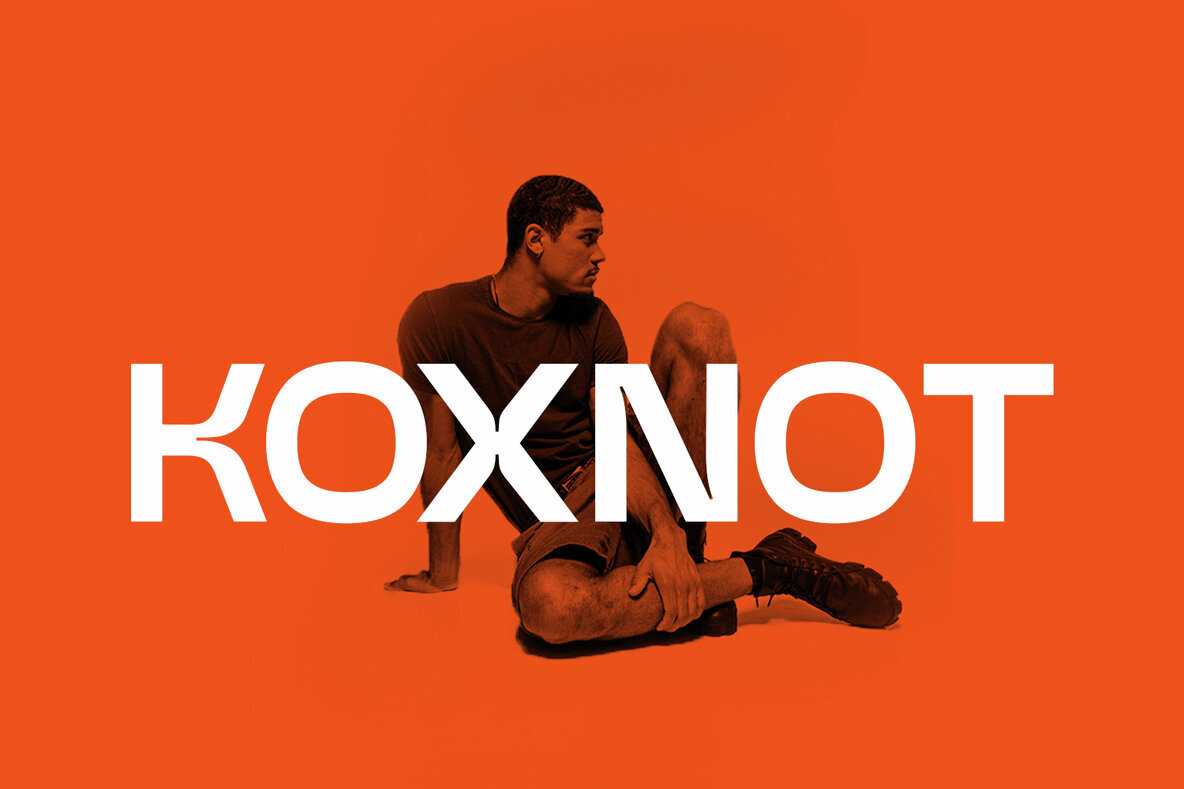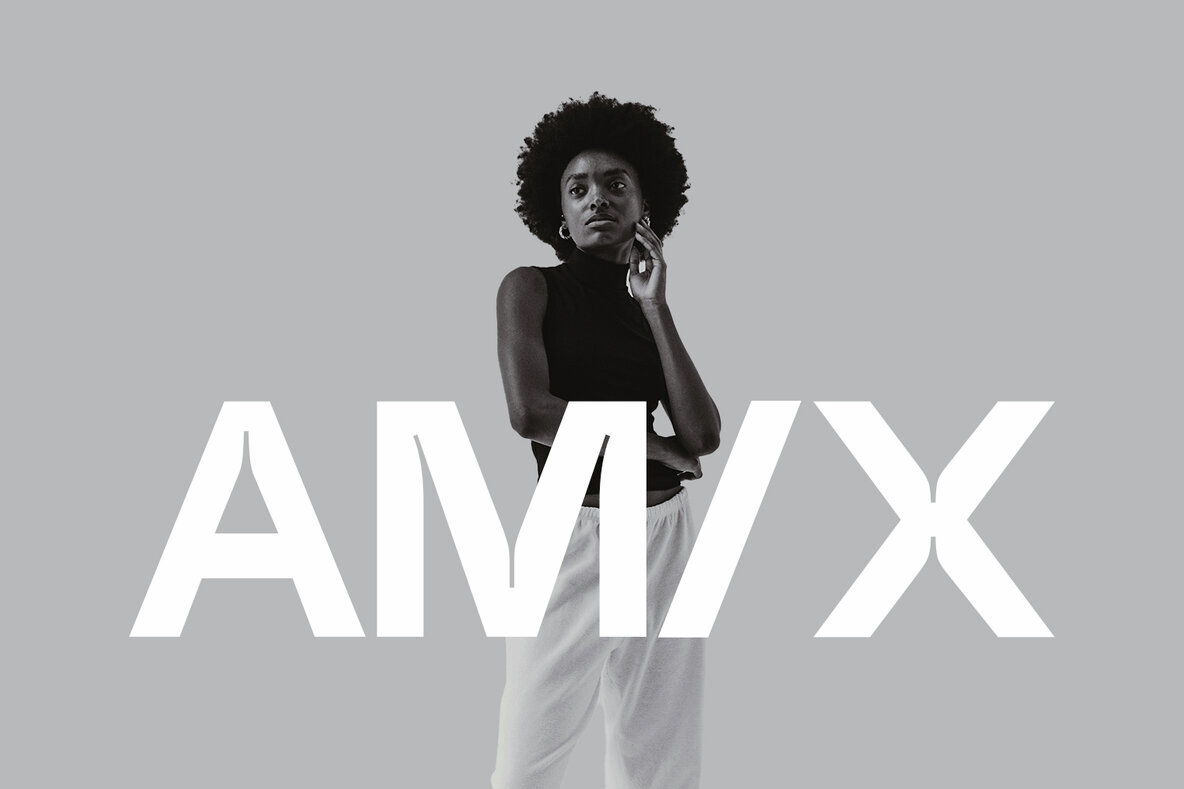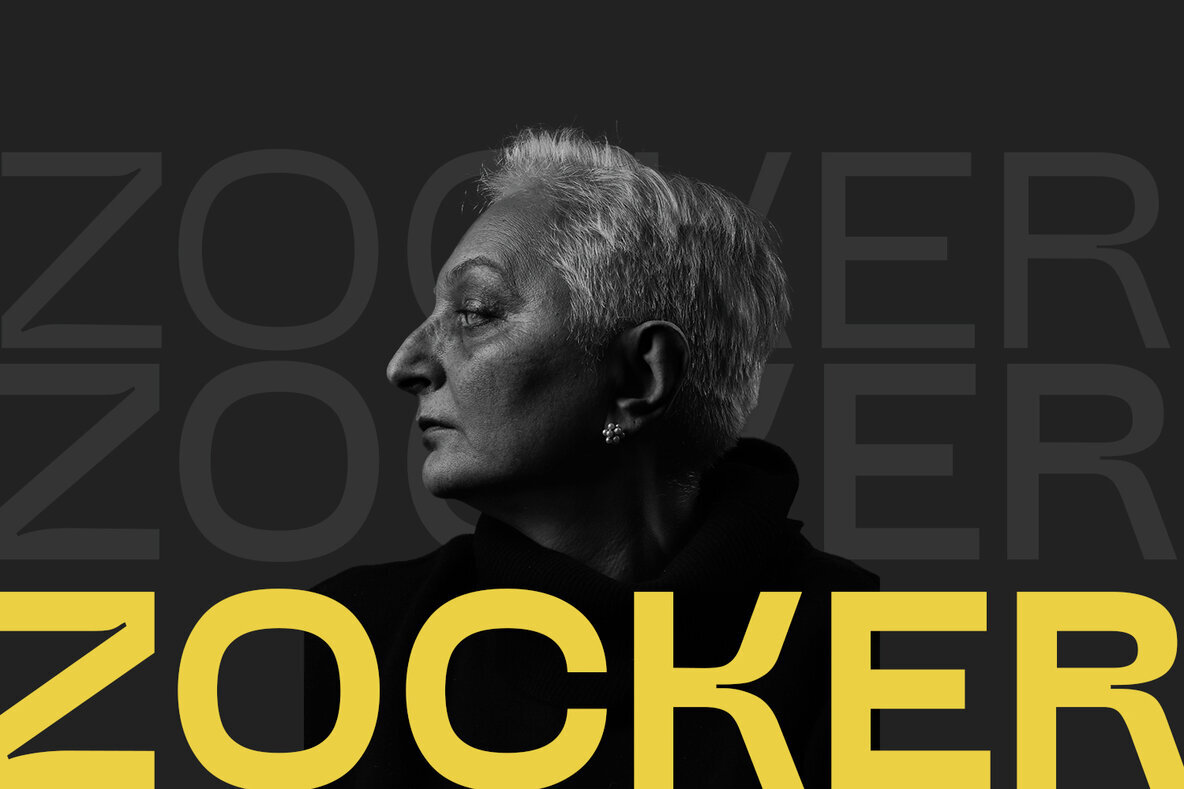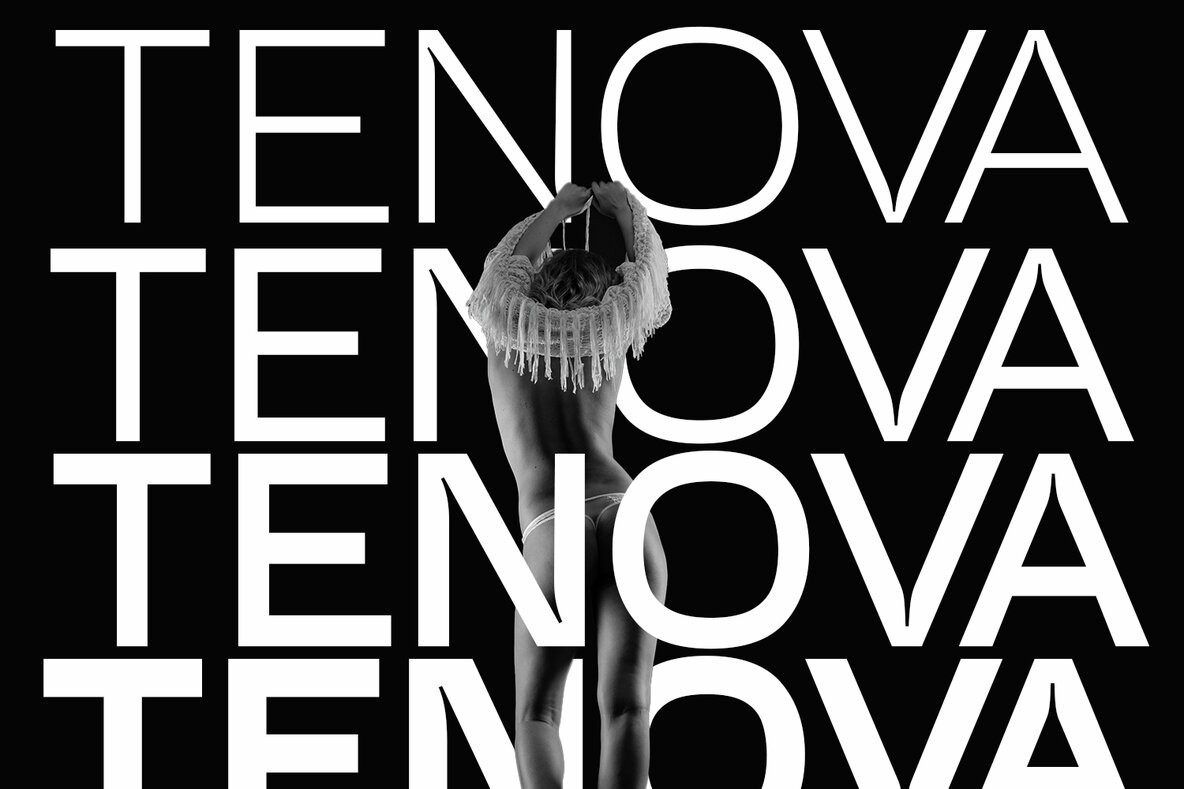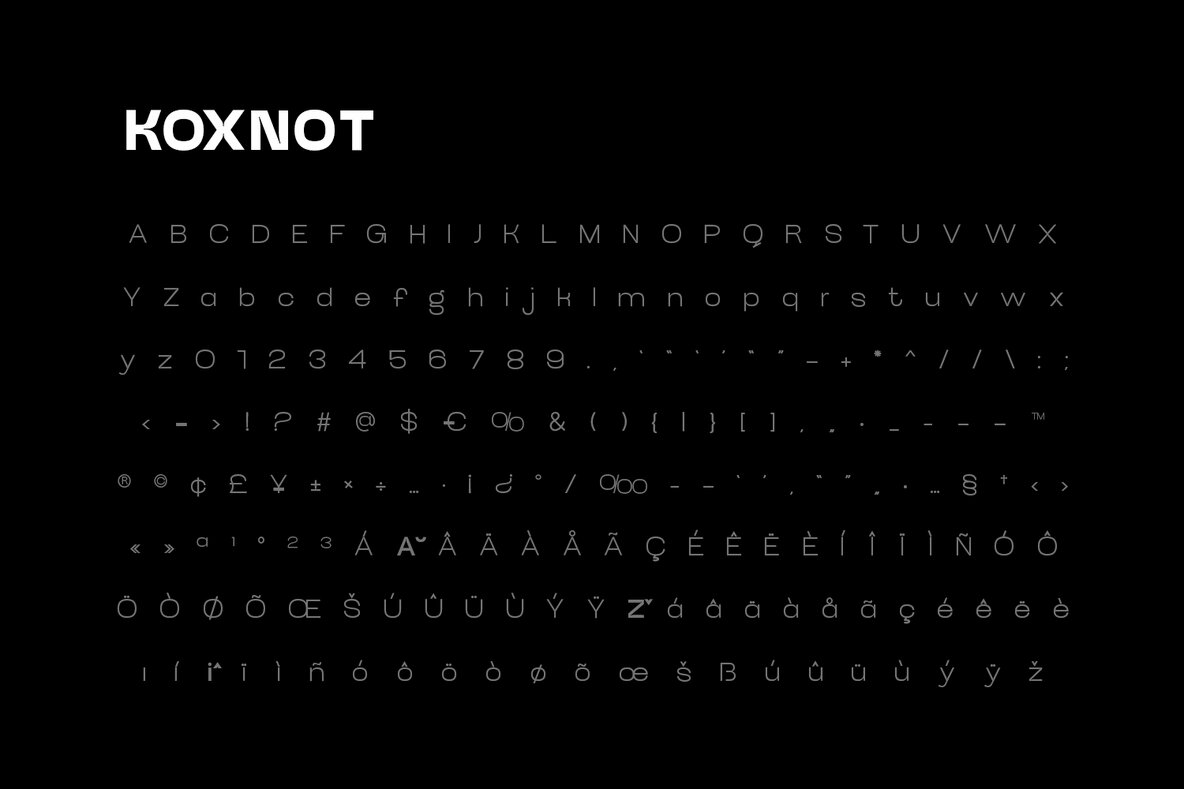
Koxnot Font
Koxnot Display font embodies precision, tailored to make an impactful impression in an array of creative projects. Whether employed for posters, magazine covers, headlines, or branding, it infuses designs with both a modern and dynamic touch. Koxnot Display's distinctive style seamlessly melds elegance with impact, offering a sophisticated aesthetic to elevate branding and design endeavors.Koxnot Display: Bold Statements in Typography